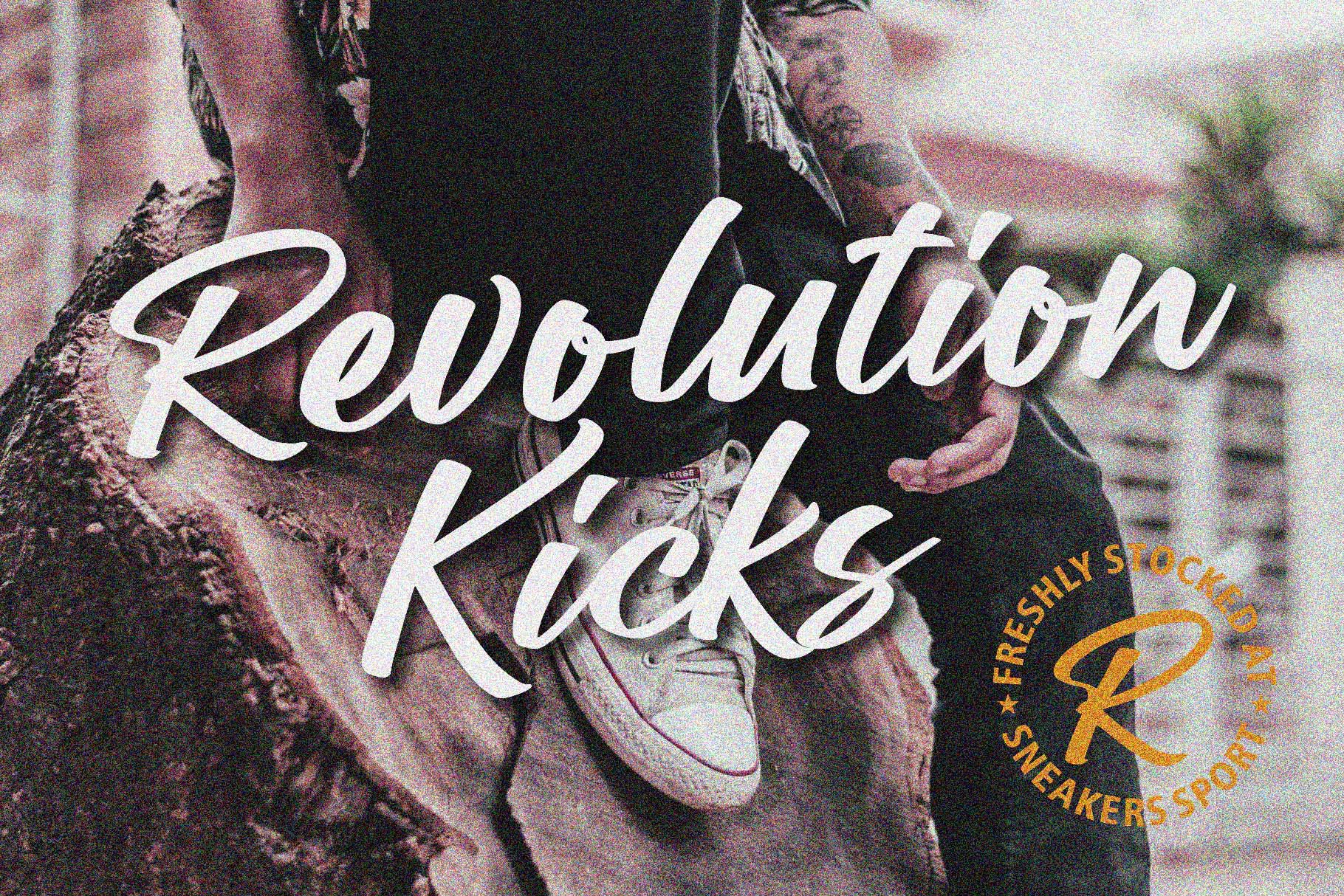
Ballerick Script Font
This font is perfect for creating signature logos and watermarks for photography studio or wedding invitation, Lable, Logo, Magazine best for initial or branding logo signature.
Introducing Ballerick Script Font.
This font is perfect for modern projects, headings, blogs, logos, brandings, tagline, invitations and more!
• Uppercase & lowercase letters, numbers, punctuation
• Multilingual support
• Numerals and Punctuation